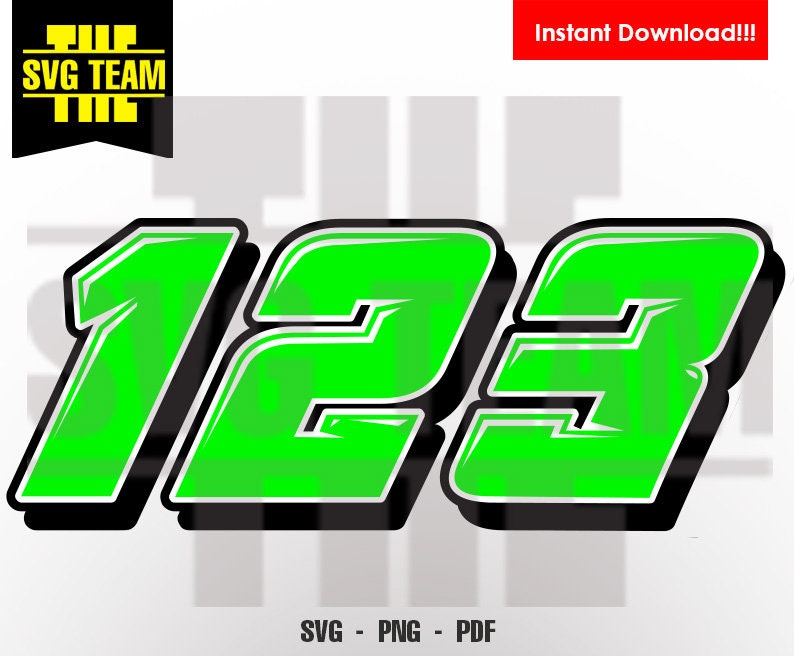
Nascar Number Font Generator . Download and install nascar font, that is from sans serif category. Nascar font generator & download is available free at fontbolt.
Nascar 42 Font
Perfect for nascar parody designs. Download and install nascar font, that is from sans serif category. Use our free nascar font generator below to create your own custom design logo or image. Enter your text, select a font, choose a font size, and pick.
Nascar Number Font Generator - Every font is free to download! Rev up your design game with our font style text effect generator! Experience nascar’s beautiful typography with our nascar font generator. Perfect for nascar parody designs. This tool allows you to check how your text would display in different fonts similar to the font and download the ones you prefer.
Nascar Number Font Generator - Use the text generator below to convert your text into graphics online with nascar full speed font, you can then save the image or click on the embed button to get links to embed the image on the web. Download and install nascar font, that is from sans serif category. Click to find the best 25 free fonts in the.
Nascar Number Font Generator - Try our text generator and create cool graphics for nascar font, then you can save the. Use the text generator below to convert your text into graphics online with nascar full speed font, you can then save the image or click on the embed button to get links to embed the image on the web. Rev up your design game.
Nascar Number Font Generator - Try our text generator and create cool graphics for nascar font, then you can save the. Use our free nascar font generator below to create your own custom design logo or image. Perfect for nascar parody designs. Click to find the best 25 free fonts in the nascar style. Use the text generator below to convert your text into graphics.
Nascar Number Font Generator - Every font is free to download! Enter your text, select a font, choose a font size, and pick. Try our text generator and create cool graphics for nascar font, then you can save the. Perfect for nascar parody designs. Download and install nascar font, that is from sans serif category.
Nascar Number Font Generator - Use the text generator below to convert your text into graphics online with nascar full speed font, you can then save the image or click on the embed button to get links to embed the image on the web. Nascar font generator & download is available free at fontbolt. Enter your text, select a font, choose a font size, and.
Nascar Number Font Generator - Download and install nascar font, that is from sans serif category. Use our free nascar font generator below to create your own custom design logo or image. This font is available free to download from dafontfree.co. Rev up your design game with our font style text effect generator! Experience nascar’s beautiful typography with our nascar font generator.
Nascar Number Font Generator - Try our text generator and create cool graphics for nascar font, then you can save the. This tool allows you to check how your text would display in different fonts similar to the font and download the ones you prefer. Perfect for nascar parody designs. Rev up your design game with our font style text effect generator! Download and install.
Nascar Number Font Generator - Every font is free to download! Download and install nascar font, that is from sans serif category. Enter your text, select a font, choose a font size, and pick. This tool allows you to check how your text would display in different fonts similar to the font and download the ones you prefer. Perfect for nascar parody designs.
Nascar Number Font Generator - Use our free nascar font generator below to create your own custom design logo or image. Download and install nascar font, that is from sans serif category. Every font is free to download! This tool allows you to check how your text would display in different fonts similar to the font and download the ones you prefer. Use the text.
Nascar Number Font Generator - Nascar font generator & download is available free at fontbolt. Try our text generator and create cool graphics for nascar font, then you can save the. Use the text generator below to convert your text into graphics online with nascar full speed font, you can then save the image or click on the embed button to get links to embed.
Nascar Number Font Generator - Perfect for nascar parody designs. Download and install nascar font, that is from sans serif category. Use our free nascar font generator below to create your own custom design logo or image. Nascar font generator & download is available free at fontbolt. Use the text generator below to convert your text into graphics online with nascar full speed font, you.